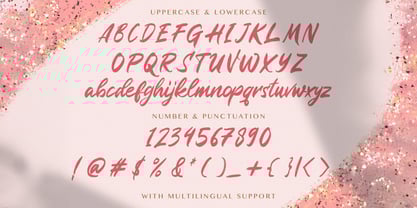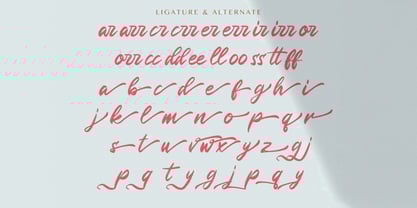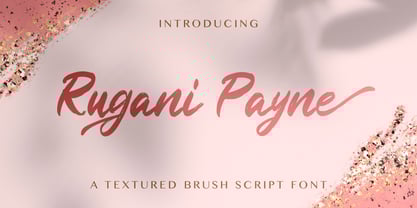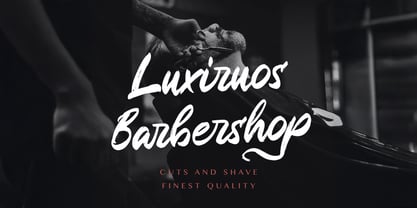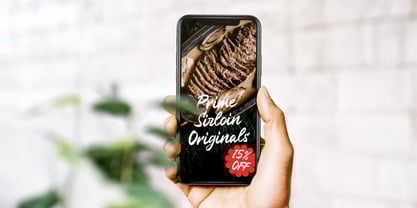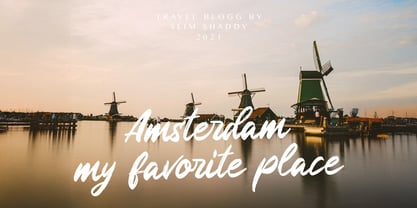
Rugani Payne
por Stringlabs Creative Studio
La familia tipográfica Rugani Payne fue diseñada por Virgiawan Listanto y publicada por Stringlabs Creative Studio. Rugani Payne contiene 1 estilos.
Rugani Payne is a bold textured brush font crafted with dynamic strokes and raw, handmade energy. Designed to command attention, its rugged texture and expressive flow make it perfect for impactful, edgy, and creative design work. Ideal for everything from music branding to statement posters, Rugani Payne adds a fearless, authentic vibe to your visual storytelling.
Diseñadores: Virgiawan Listanto
Editorial: Stringlabs Creative Studio
Fundición: Stringlabs Creative Studio
Propietario del diseño: Stringlabs Creative Studio